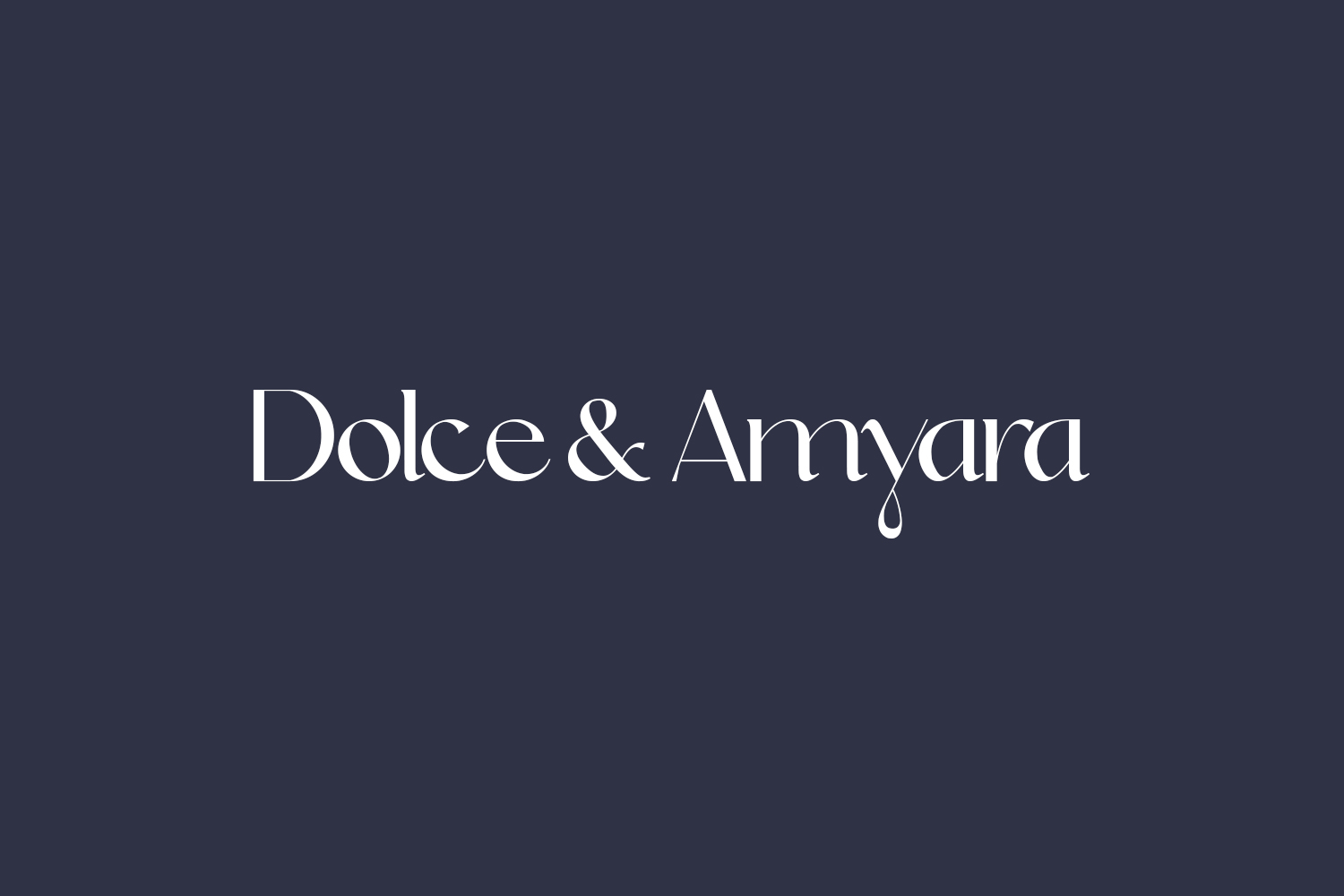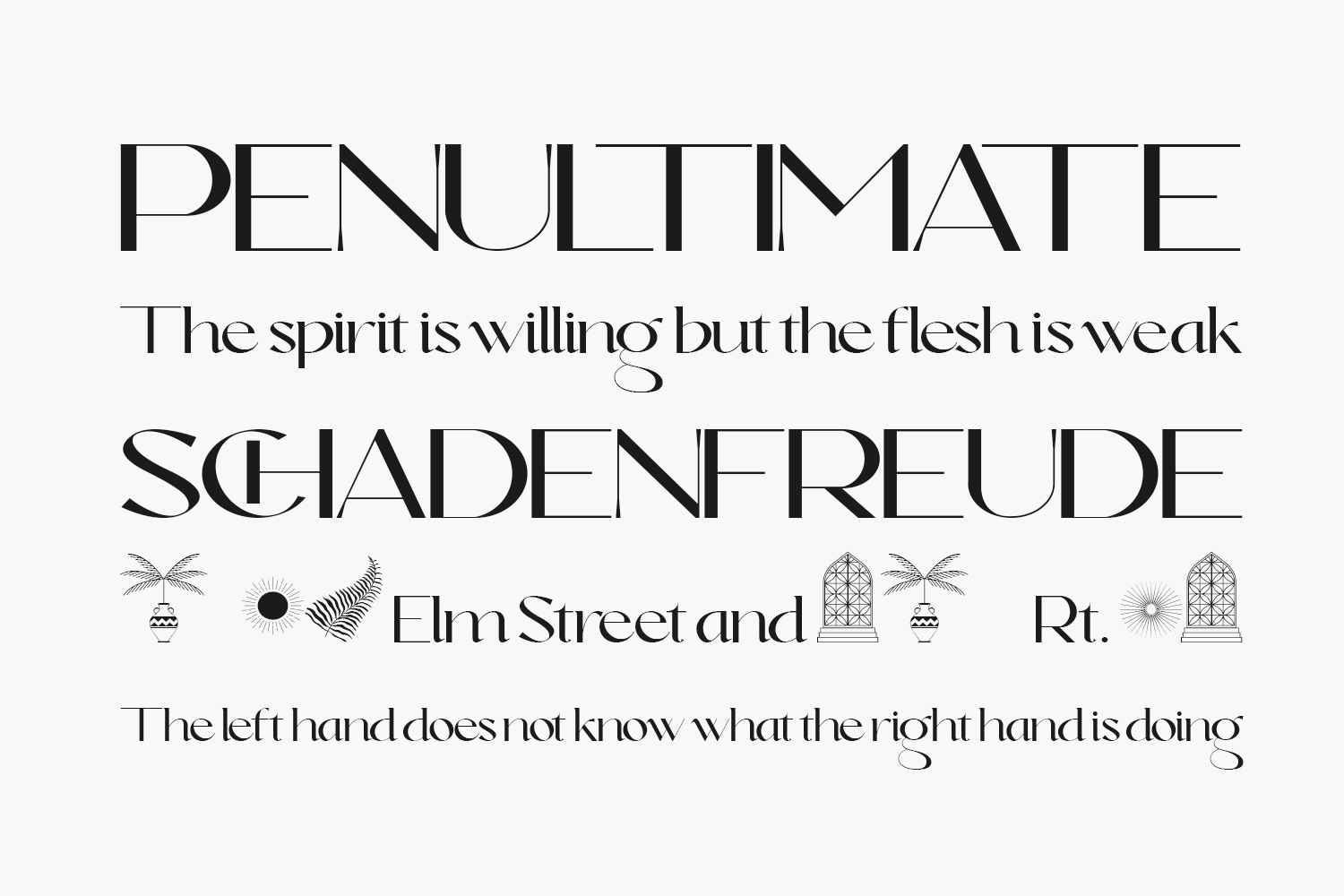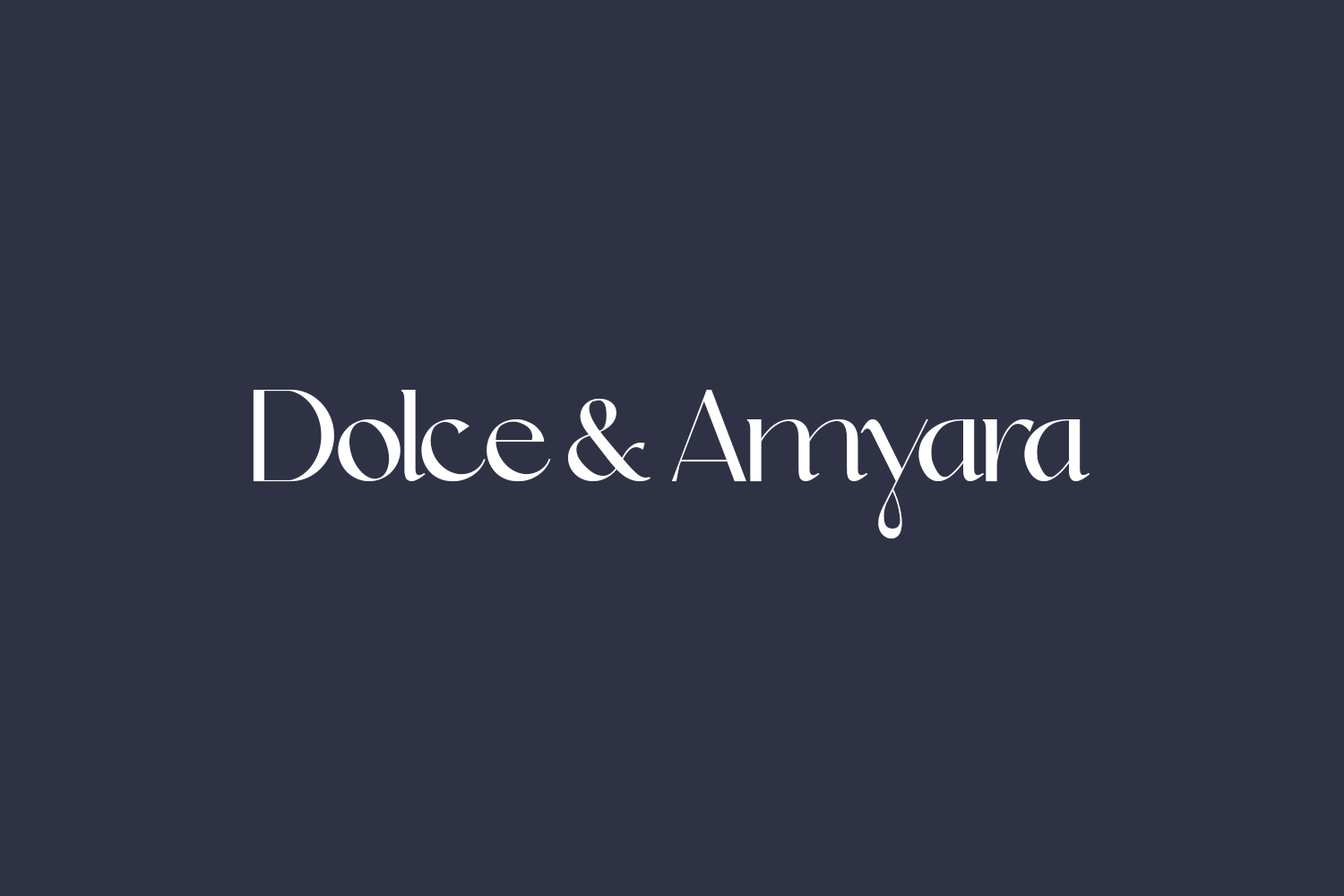
Introducing Dolce & Amyara Free Font, a sophisticated contemporary serif font family that seamlessly blends modern trends with timeless elegance. Perfect for enhancing logos, branding, invitations, marketing collateral, wedding creations, social media content, and any project in need of a personalized and refined touch. Download the font for free if you need it for personal use or purchase the full version for commercial use.